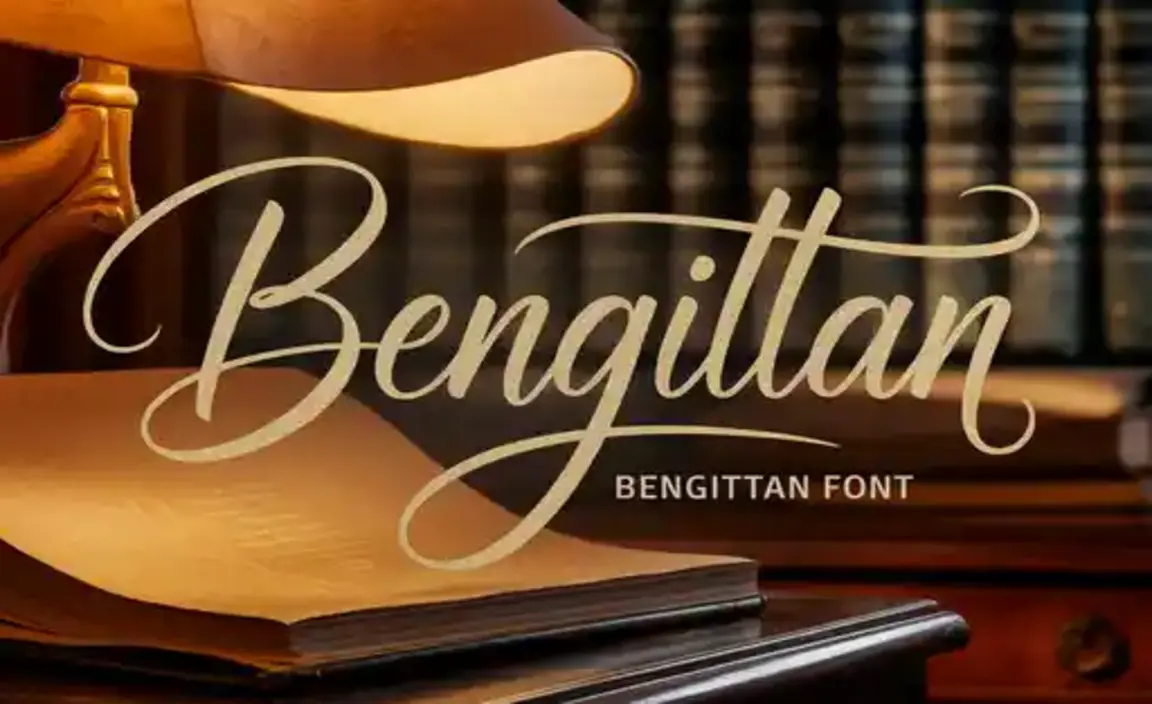
The Bengittan Font, designed by Dede Nugraha and published by Denustudio, is a charming handwritten script font that combines elegance with versatility. With its smooth, flowing strokes and beautifully connected letters, this luxury script font adds a magical touch to any creative project. Whether you’re working on personal designs or branding, Bengittan Font ensures sophistication and uniqueness.
Type of Bengittan Font (Font Family)
The Bengittan Font Family features a single, stunning style:
- Bengittan Regular
- Bengittan Italic
Using Occasions Of The Bengittan Font
The adaptability of Bengittan Font makes it ideal for various creative uses:
- Logos: Create professional and elegant brand identities.
- Invitations: Perfect for wedding and event invitation cards.
- Social Media Graphics: Enhance Instagram, Pinterest, and Twitter visuals.
- Branding Projects: Elevate product packaging, shopping bags, and labels.
- Print Templates: Design eye-catching posters, book covers, and greeting cards.
- Photography: Ideal for watermarks and artistic captions.
- Special Events: Add a touch of elegance to quotes and mugs.
Bengittan Font Found In Use
This font shines in various scenarios, including:
- Homeware Designs: Adds sophistication to everyday products.
- Product Packaging: Ensures luxurious branding for your items.
- Special Occasions: Delivers charm for high-end invitations and quotes.
- Digital Content: Beautifully enhances blog posts and social media graphics.
Features Of Bengittan Font
- Smooth Strokes: Ensures readability and elegance.
- Luxury Script Style: Perfectly balances sophistication and versatility.
- Multilingual Support: Ideal for global projects.
- Ligatures: Provides seamless character connections.
1.What Is Bengittan Font, And What Makes It Unique?
Bengittan Font is a handwritten script font designed by Denustudios. It features smooth strokes and beautifully connected letters. This luxury script font is perfect for various creative projects, from logos and branding projects to invitation cards and greeting cards. Its versatility and elegance make it a popular choice for personal and professional designs.
2.How Many Styles Does The Bengittan Font Family Include?
The Bengittan Font Family includes 1 style, Bengittan Regular. This single style is crafted to provide a magical script font experience, suitable for calligraphy, book covers, shopping bags, and other creative applications.
3.What Are The Ideal Uses For Bengittan Font?
The Bengittan handwritten script font is highly versatile and can be used for various purposes:
- Branding projects: Enhance logos, labels, and product packaging.
- Homeware designs: Add sophistication to mugs, shopping bags, and decorative items.
- Print materials: Create stylish posters, greeting cards, and book covers.
- Special events: Design elegant invitation cards, quotes, and watermarks for photography.
Bengittan Font stands out for its:
- Elegance: Smooth strokes and a classy script style.
- Ligature support: Seamless character connections for a professional look.
- Versatility: Suitable for homeware designs, posters, mugs, and more.
- Multilingual support: Perfect for global branding projects.
- Magical script font design: Adds a unique charm to every project.
Whether you’re designing invitation cards for a special event or creating a stunning watermark for your photography, Bengittan Font ensures your work looks professional and elegant.